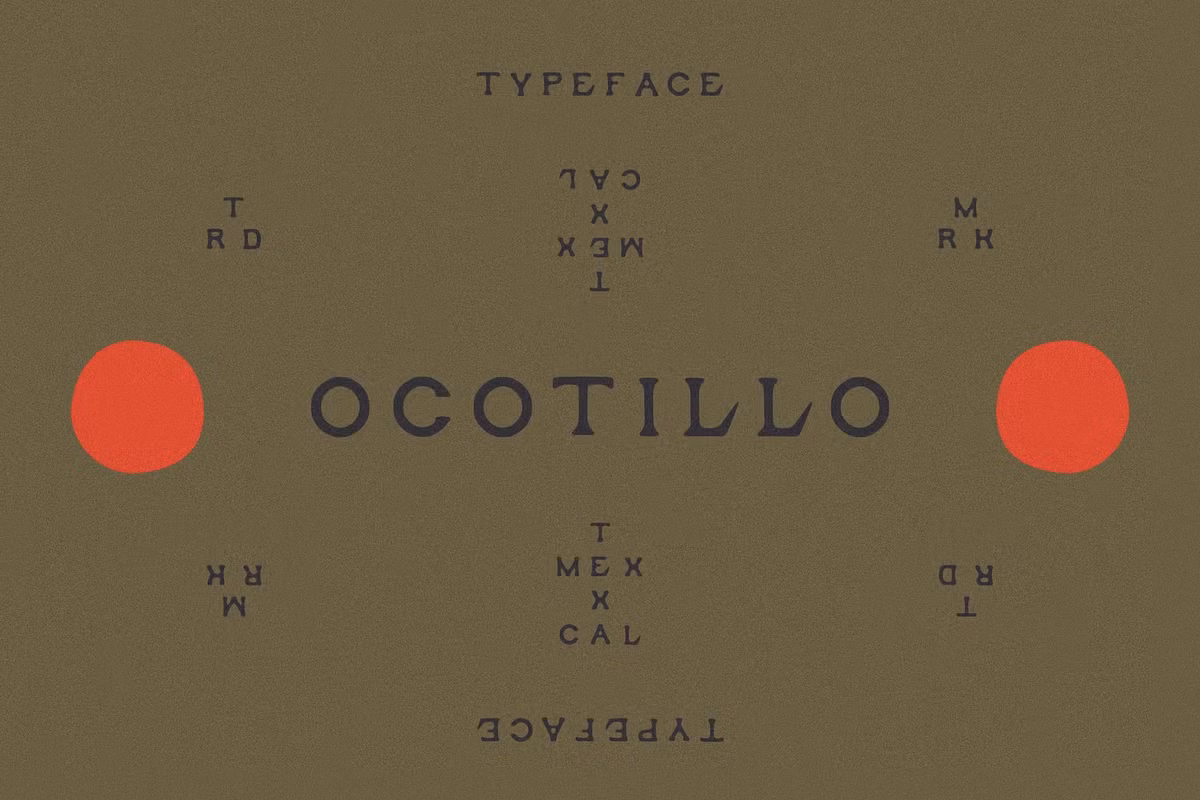
OCOTILLO TYPEFACE Free Download
Ocotillo Typeface Free Download
Please note that you must purchase this font for commercial use. You can download Ocotillo Typeface for free, strictly for personal testing purposes only. Ocotillo is a modern, elegant serif typeface designed with strong geometric lines and sophisticated curves. With its bold, clean design, Ocotillo Typeface Free Download is perfect for branding, logos, editorial designs, posters, and any project that requires a polished and refined appearance.
The font combines both traditional serif elements and contemporary design, making it highly versatile for both print and digital projects. It includes uppercase and lowercase letters, numerals, punctuation, and multilingual support, providing flexibility for a wide range of creative uses.
Whether you're designing for a high-end brand, working on a sleek website, or creating stylish promotional materials, Ocotillo brings clarity, elegance, and modern sophistication to your typography.